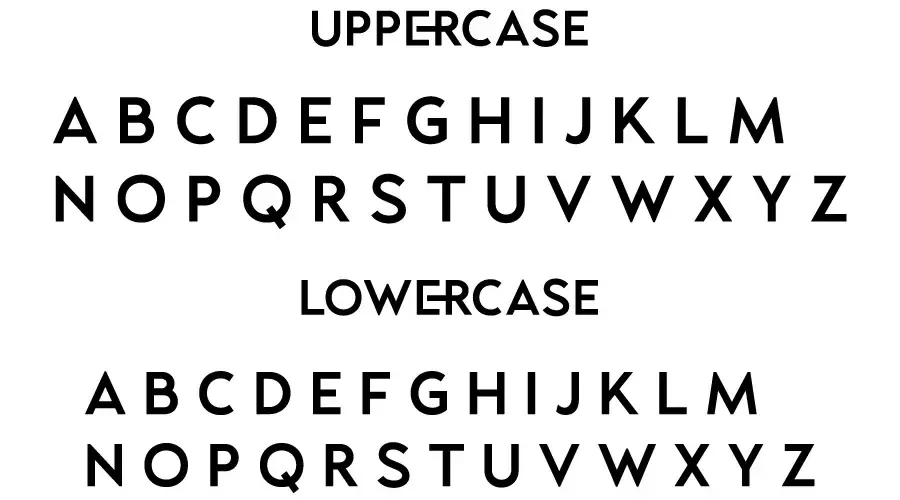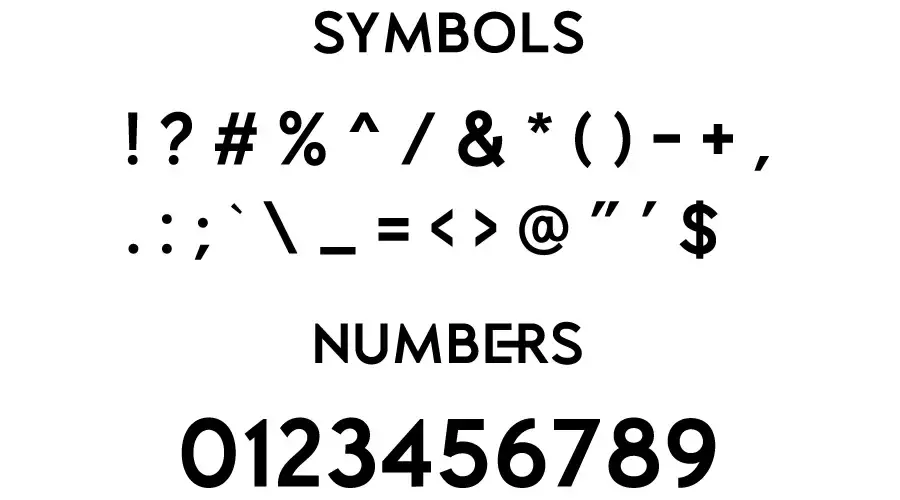
About the Font
Cloudsters Regular is a modern sans-serif font with distinctive ligatures that is ideal for designs that demand a clean, modern aesthetic. The font was created with logotypes in mind, but it may also be used for branding, advertising, posters, flyers, and other design projects. Cloudsters Regular is a trademark of the designer Sarid Ezra.
It has 232 glyphs and 229 characters. Cloudsters’ ligatures are one of its most distinguishing qualities. Ligatures are characters that join two or more letters to form a single glyph. This means that regularly used letters, such as “fl” or “ae,” are combined into a single character, making the text more cohesive and visually appealing. Its distinctive ligatures set it apart from other sans-serif fonts.
Cloudsters provides ligatures, numerals, punctuation, and linguistic support in addition to ligatures. This means that you can use the typeface to create text in a range of languages without changing fonts.
| Classification | Sans-serif |
Overall, Cloudsters is a versatile and modern font that works well for a variety of design tasks. Its distinctive ligatures and clean style make it an excellent choice for logos, branding, and other applications requiring a modern, streamlined appearance.